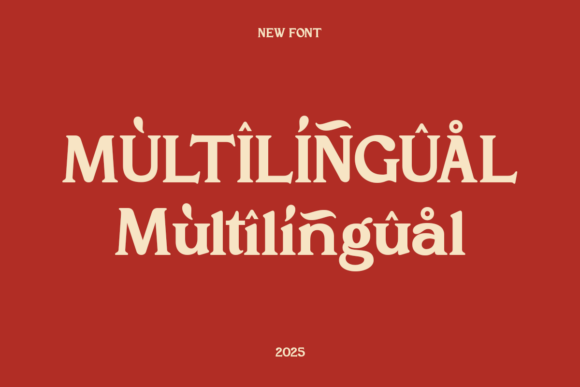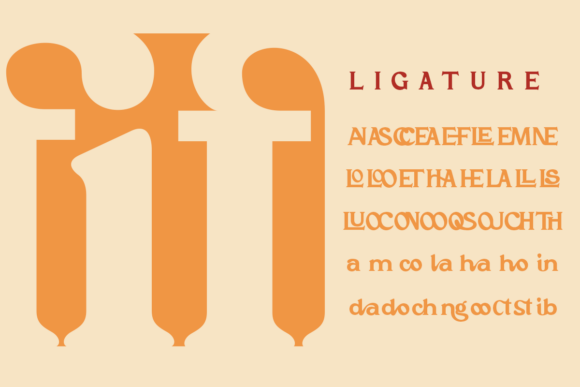
Introduction to Keijing Font
As a designer, there’s nothing quite like the thrill of landing on the perfect typeface for a creative project. It’s the moment when all the pieces fall into place, and your vision starts to take shape. For those looking to add a dash of modern flair to their designs, we’re excited to introduce you to the Keijing Font – a stunning decorative modern serif that’s sure to make a statement.
With its bold personality and playful curves, Keijing Font is the perfect choice for designers seeking a unique typography that exudes high quality and distinctive branding appeal. This expressive typeface is designed to shine in a variety of settings, from branding and packaging to posters and creative display typography.
What sets Keijing Font apart is its versatility and creative potential. With unique letterforms and stylish alternates, this typeface is perfect for designers looking to add an extra layer of visual interest to their projects. And the best part? Keijing Font is available for free download, making it an invaluable resource for any design project.
Key Features of Keijing Font
- Designed to be highly legible, with clear lines and well-spaced characters, making it perfect for body text and headings.
Honest Review: Keijing Font
I recently stumbled upon the Keijing Font, a design resource that has been making waves in the creative community. At first glance, I was impressed by its high quality and modern aesthetic. The font’s clean lines and elegant curves make it perfect for a variety of creative projects.
Here are some of the things that work well with the Keijing Font:
- ✨ Its transparent background makes it easy to use on any design surface.
- ✨ The font is highly customizable, allowing you to adjust its size, color, and style to suit your needs.
- ⚠️ The font may not be suitable for certain types of text, such as body copy, due to its relatively small character set.
- ⚠️ Some users may find the font’s bold weight a bit too condensed.
Overall, I’m impressed with the Keijing Font’s versatility and potential for creative projects. While it may not be perfect for every design task, it’s definitely a valuable addition to any designer’s toolkit.
How to Use Keijing Font
Keijing Font is a high-quality design resource that can elevate your creative project to the next level. This versatile font features a transparent background, making it perfect for a wide range of applications.
Tips for Getting the Most Out of Keijing Font
Experiment with different font sizes, colors, and combinations to achieve the desired look. Use the Keijing Font in conjunction with other design elements to create a cohesive and visually appealing design.
Use the Keijing Font in a variety of creative projects, such as:
Logo design
Branding materials
Social media graphics
Presentations and reports